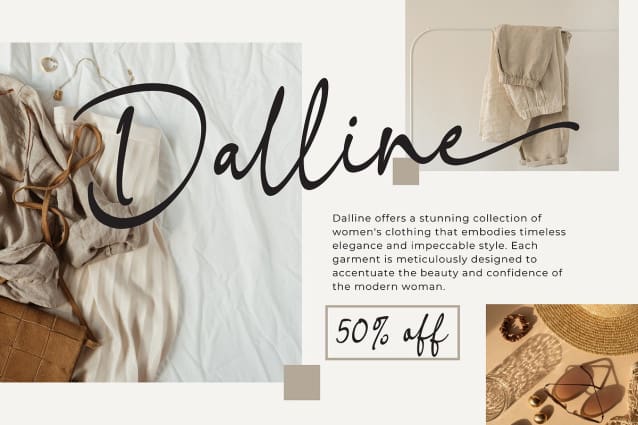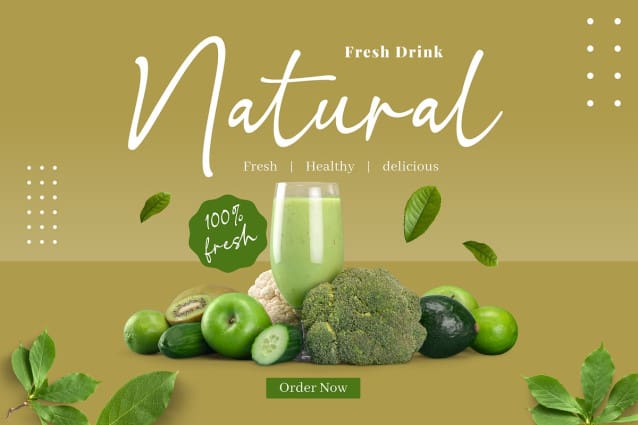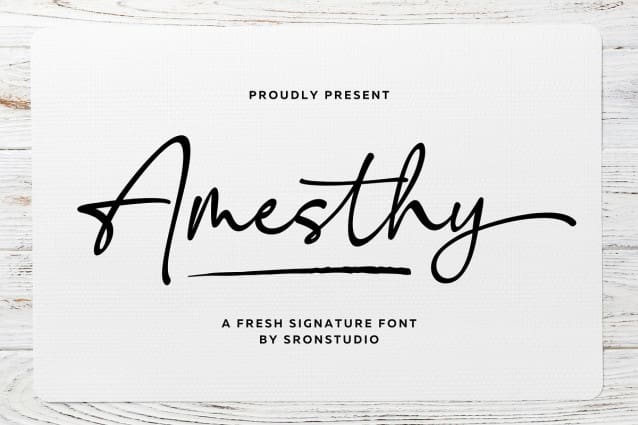
Amesthy Signature Font
Amesthy Signature Font is a sophisticated signature-style font that adds elegance and personal touch to your designs. With flowing lines and stylish flourishes, it exudes refinement and luxury. Perfect for logos, invitations, and personal branding. Embrace the beauty of a handwritten signature with “Amesthy” and make a lasting impression.